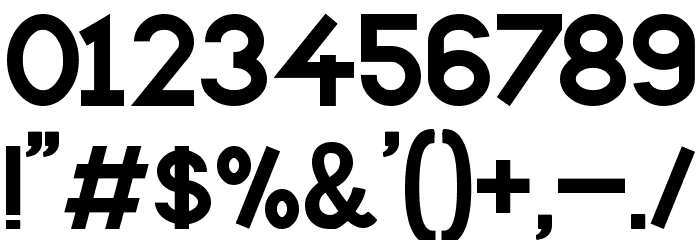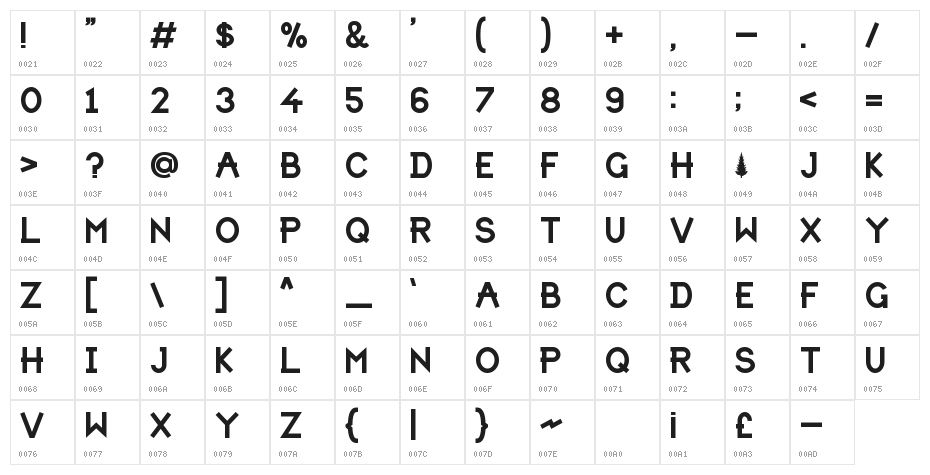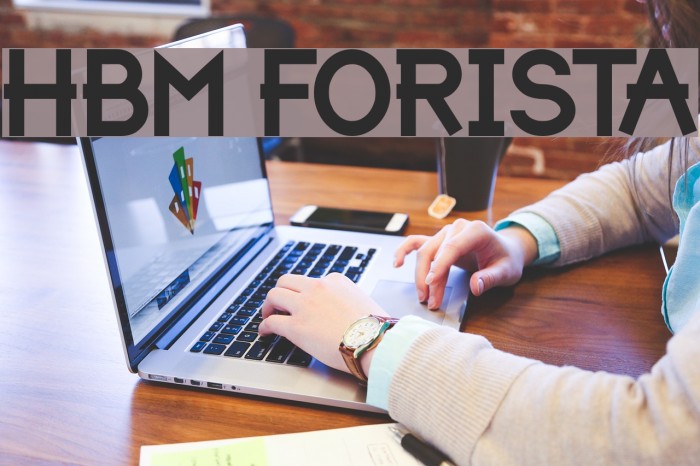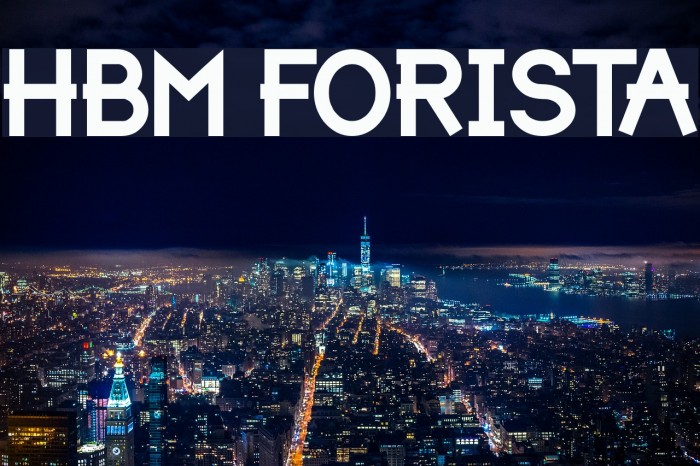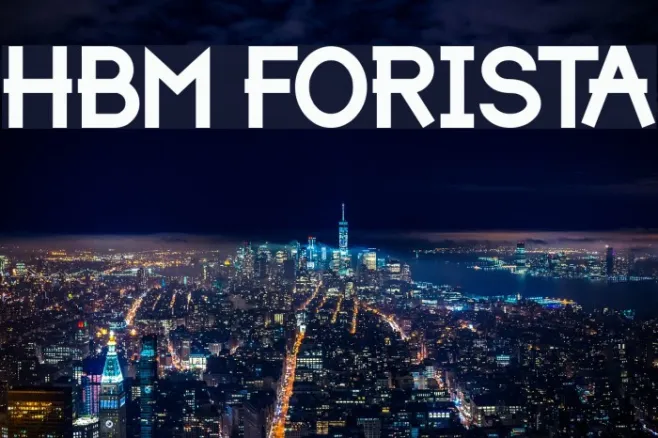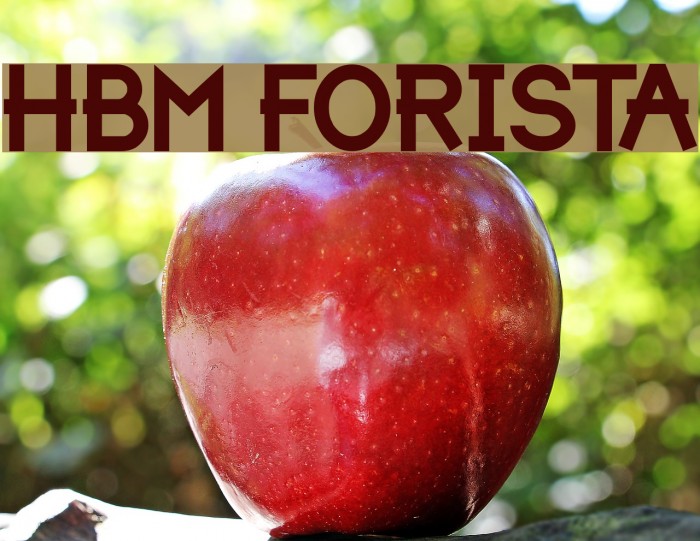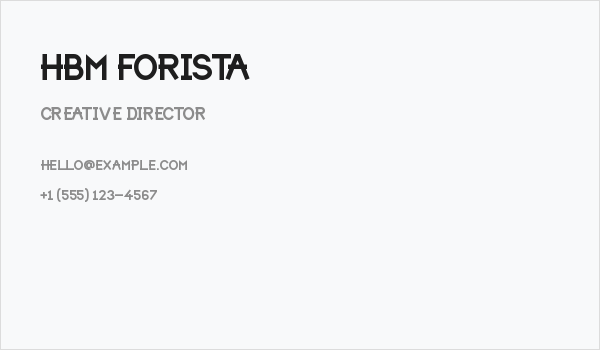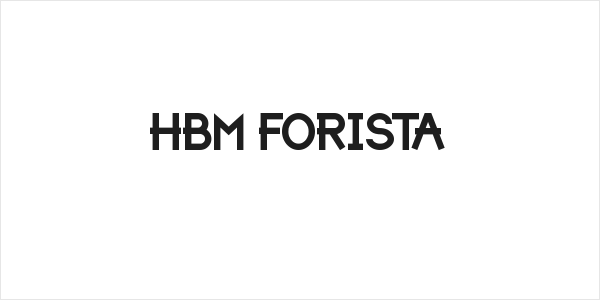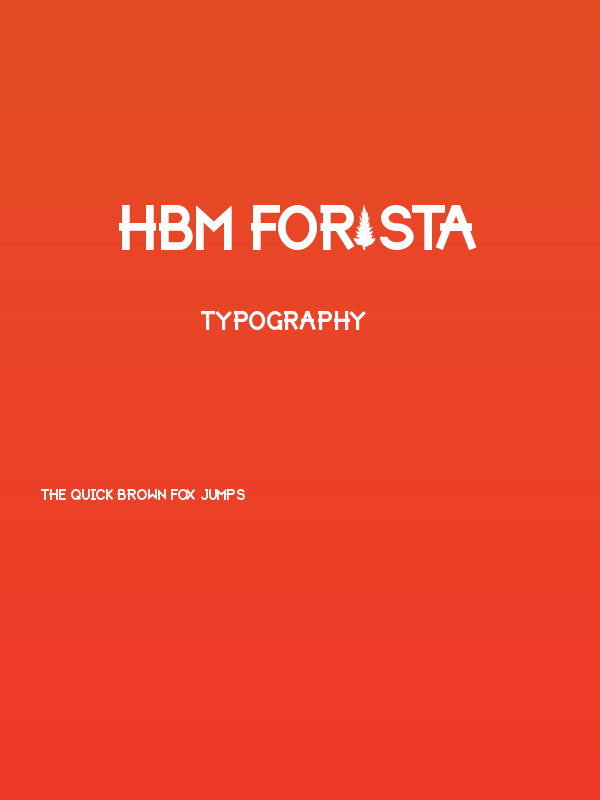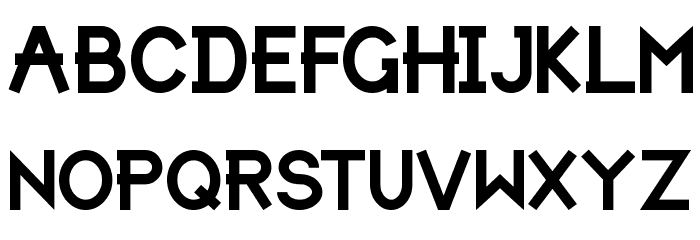
HBM Forista Font
HBM Forista Description
This font features a bold, geometric design with strong, clean lines and a modern aesthetic. The uppercase letters are characterized by their uniform width and consistent stroke weight, creating a sense of stability and strength. A unique element is the inclusion of a tree symbol in place of the letter 'I' in one variant, adding a decorative touch. The lowercase letters maintain the same geometric style, ensuring readability and cohesion across different text sizes. Numerals are equally bold and clear, making them suitable for impactful displays. Special characters are designed with the same attention to detail, ensuring they integrate seamlessly with the rest of the typeface.
| Proposed Projects | Ideal for branding, posters, headlines, and any design requiring a strong visual impact. |